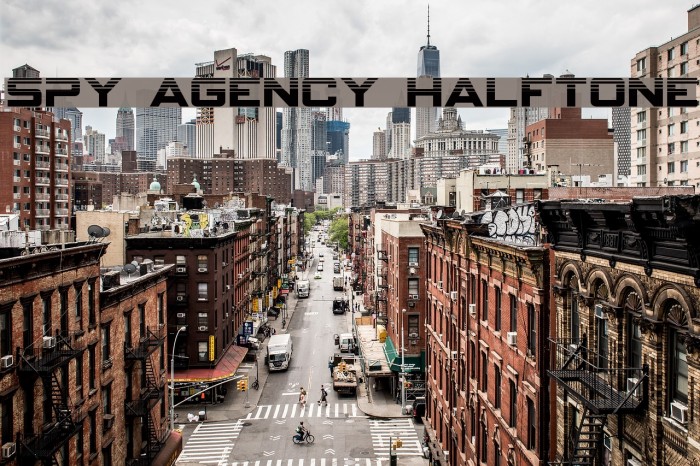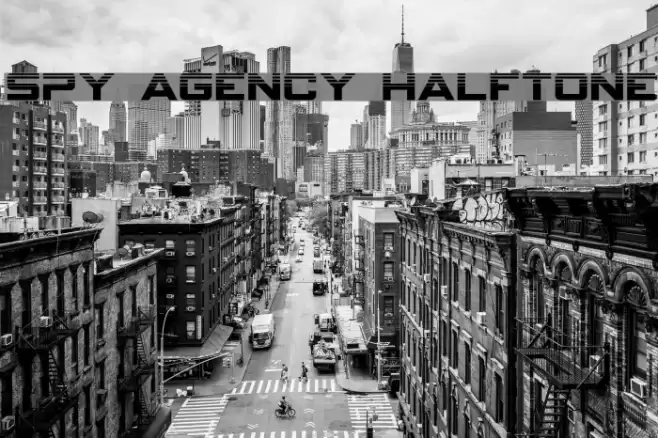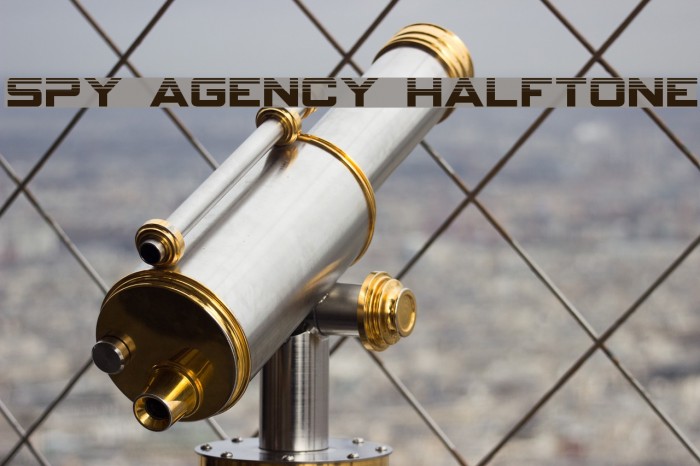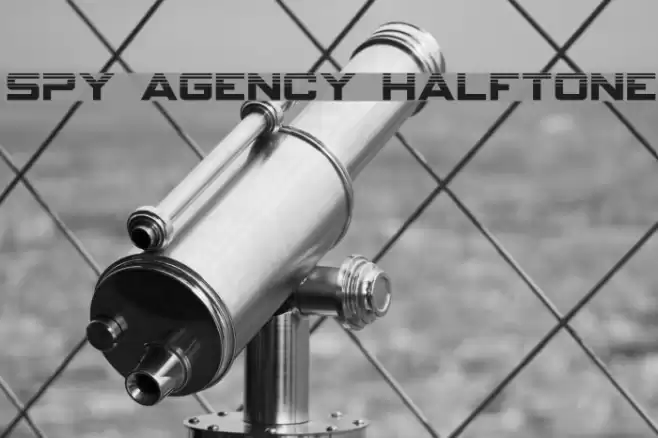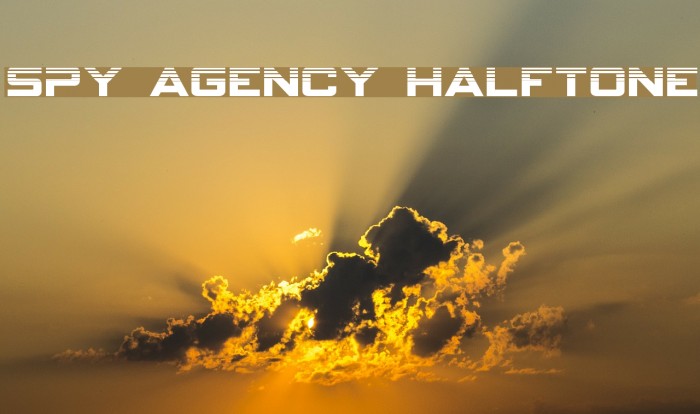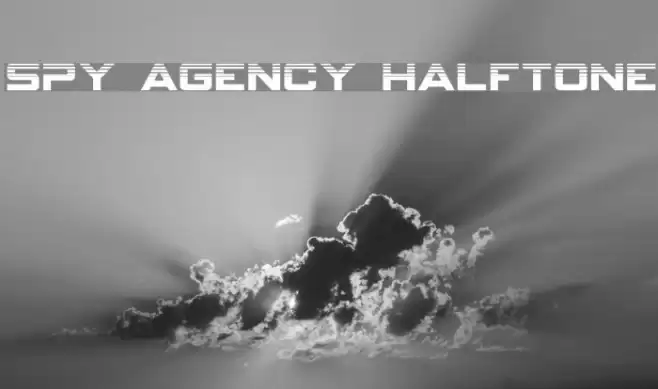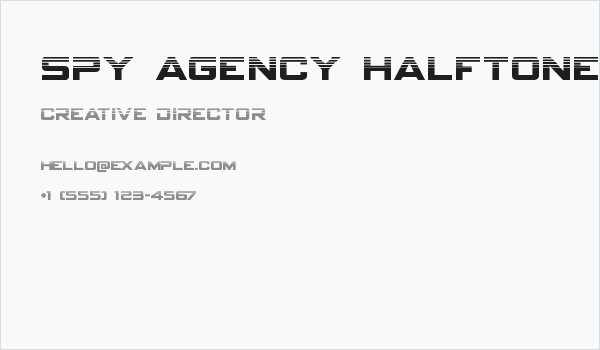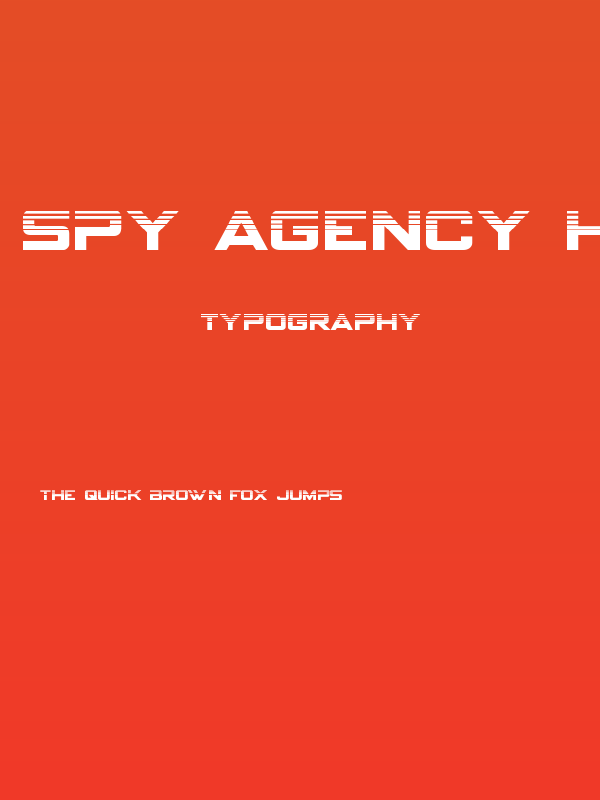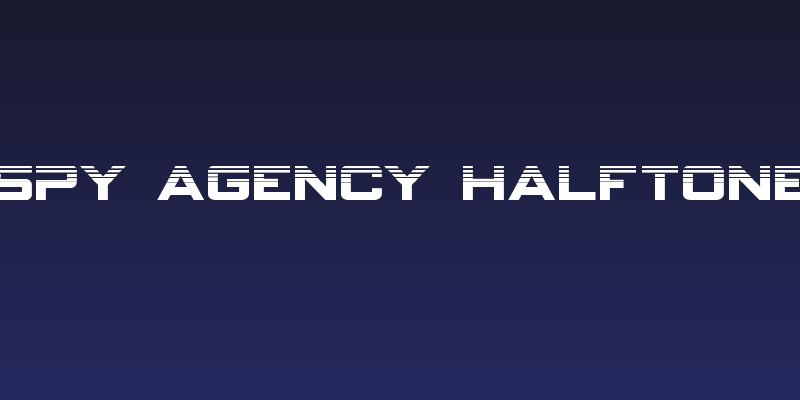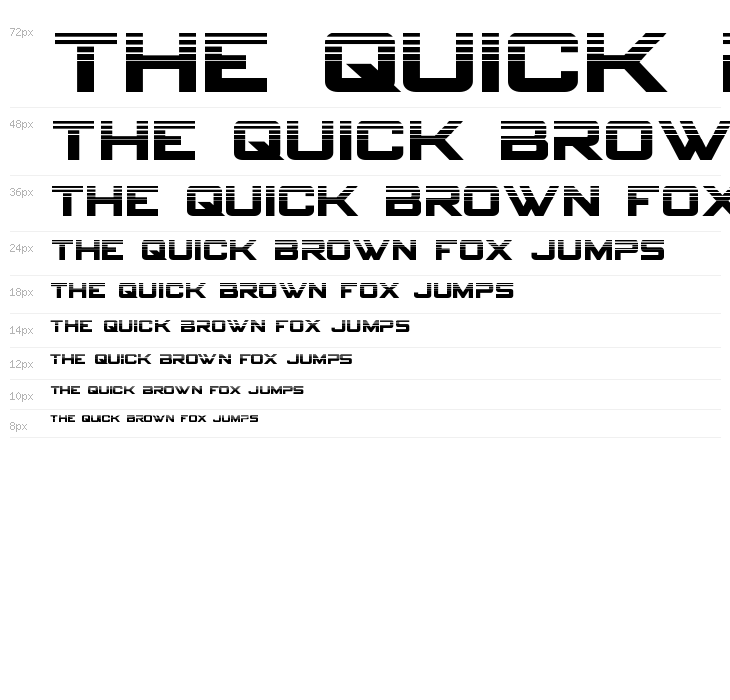
Spy Agency Halftone Font
Spy Agency Halftone Description
This font features a bold, futuristic design with a distinct halftone pattern that creates a sense of movement and dynamism. The characters are constructed with geometric precision, incorporating horizontal lines that give a sense of speed and modernity. The uppercase and lowercase letters maintain a consistent style, with sharp angles and a blocky appearance that enhances readability while adding a unique visual flair. The numerals and special characters follow the same design principles, ensuring a cohesive look across all text elements. This font is ideal for projects that require a modern, tech-inspired aesthetic.
| Proposed Projects | Ideal for tech branding, sci-fi posters, video game titles, and digital media. |